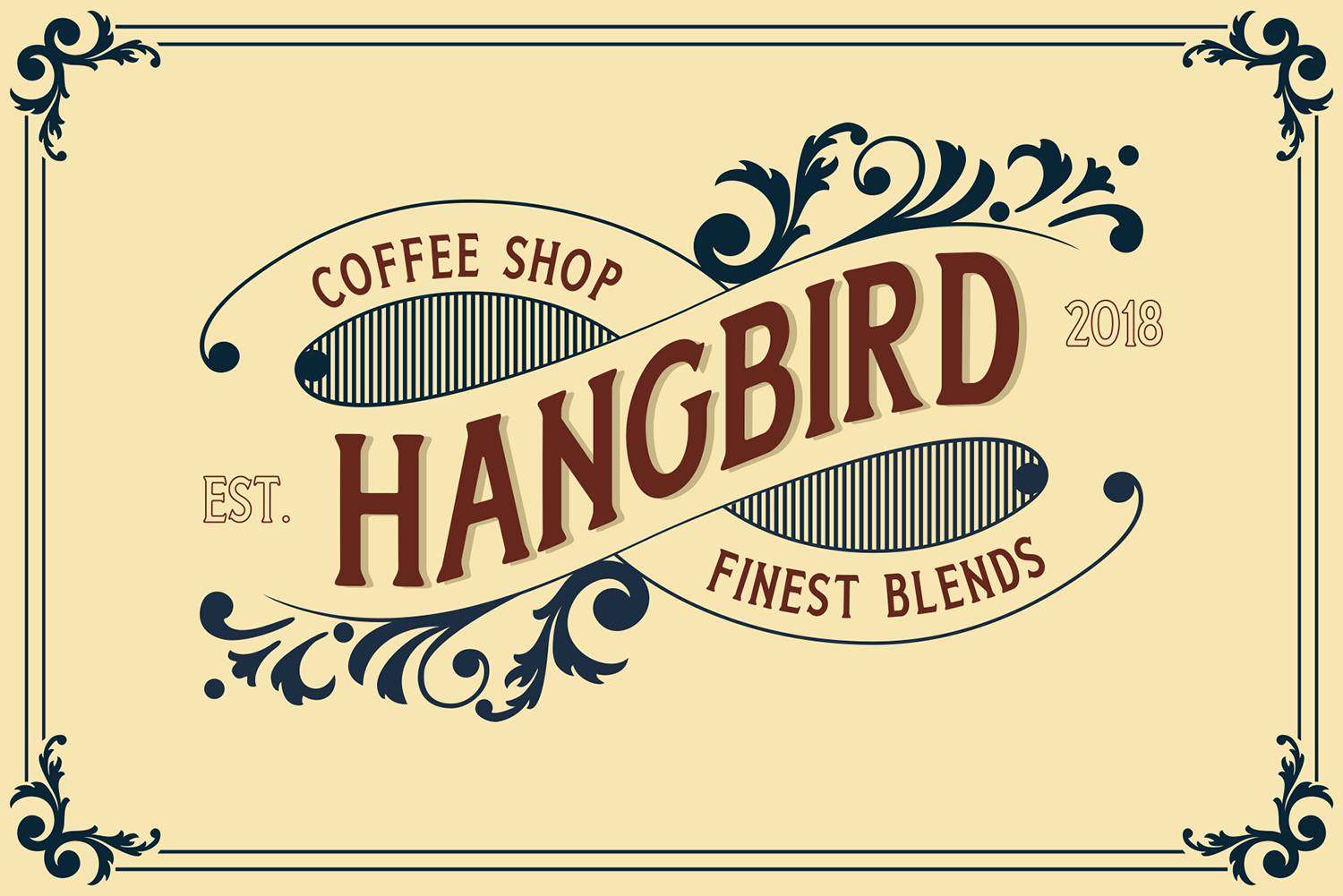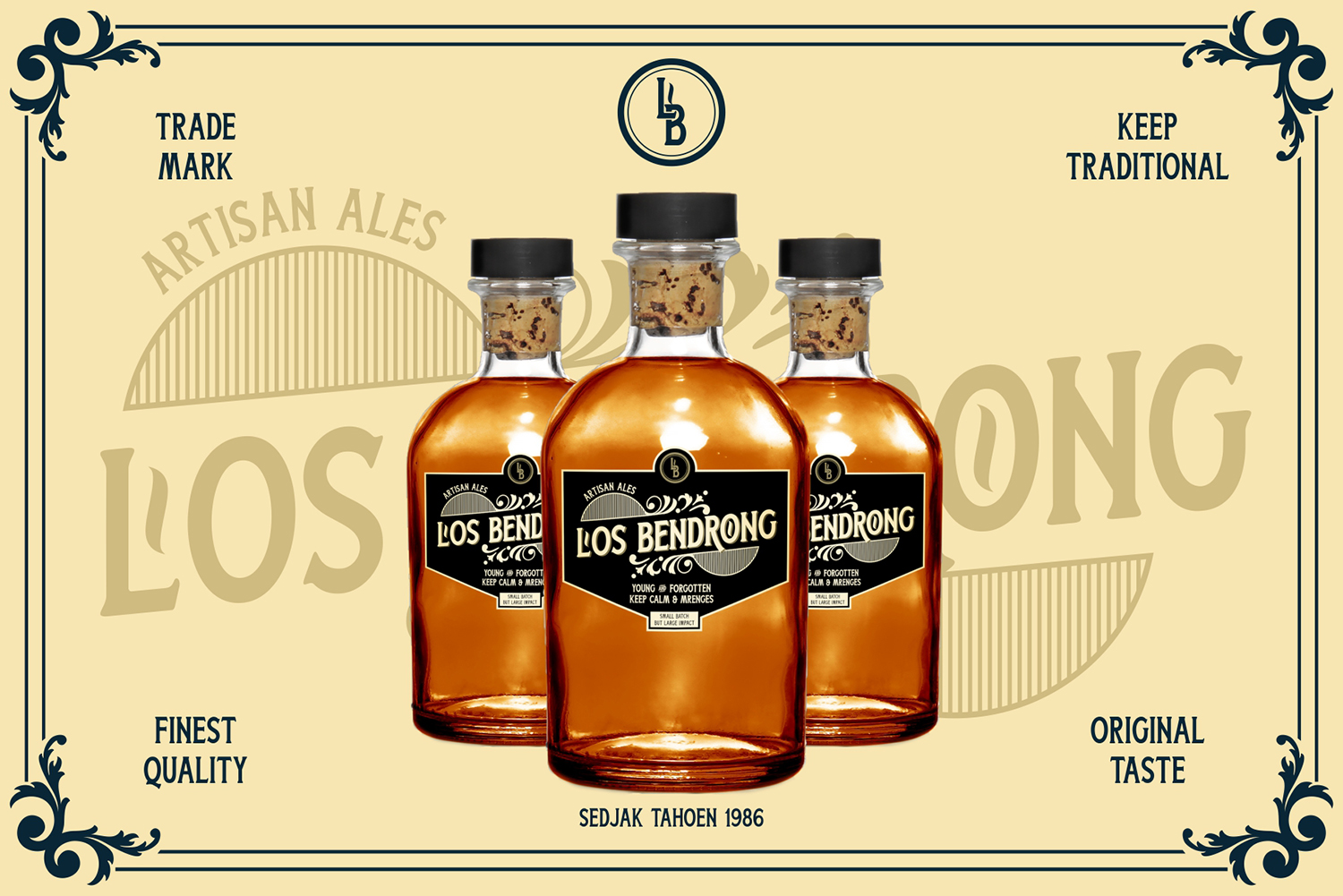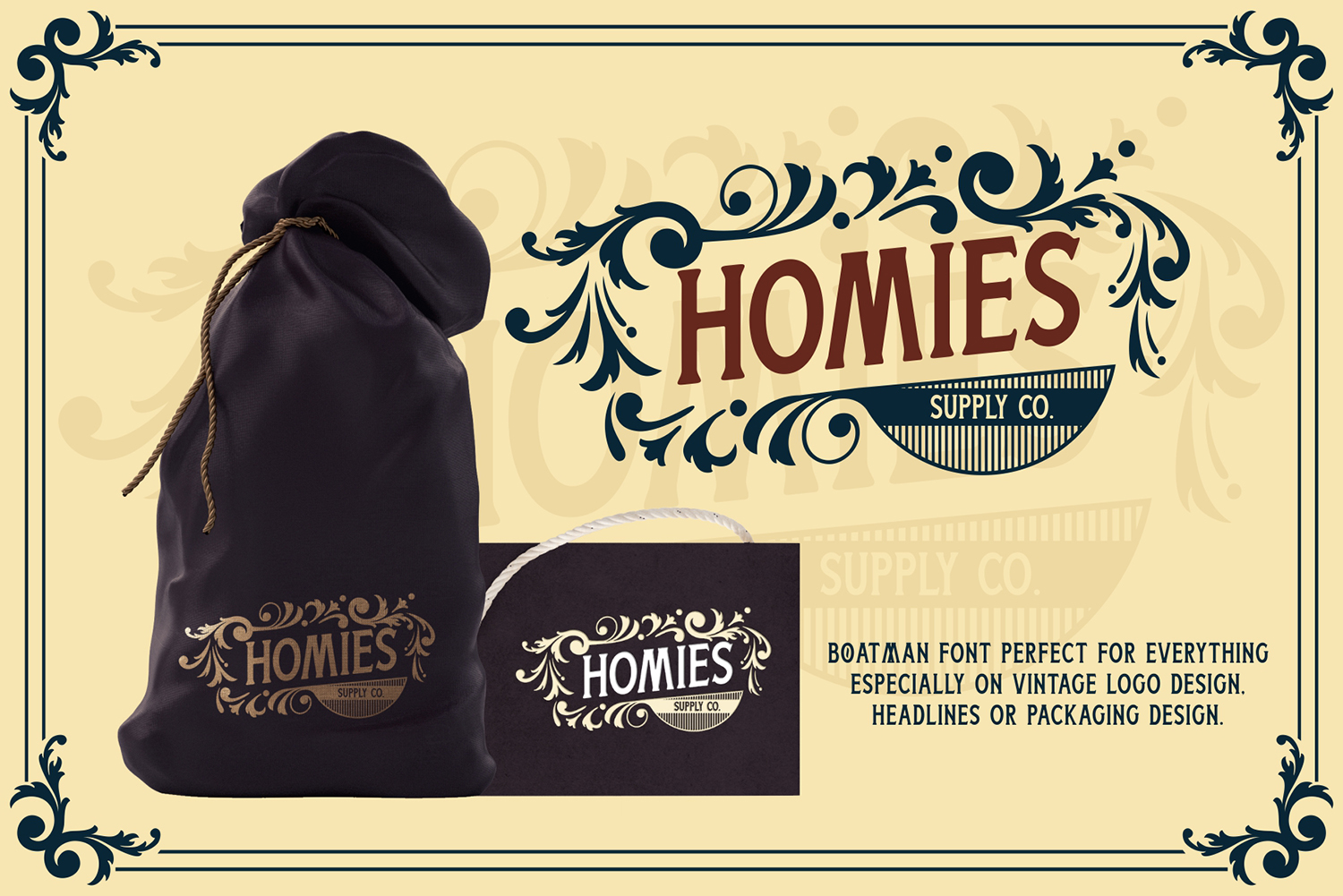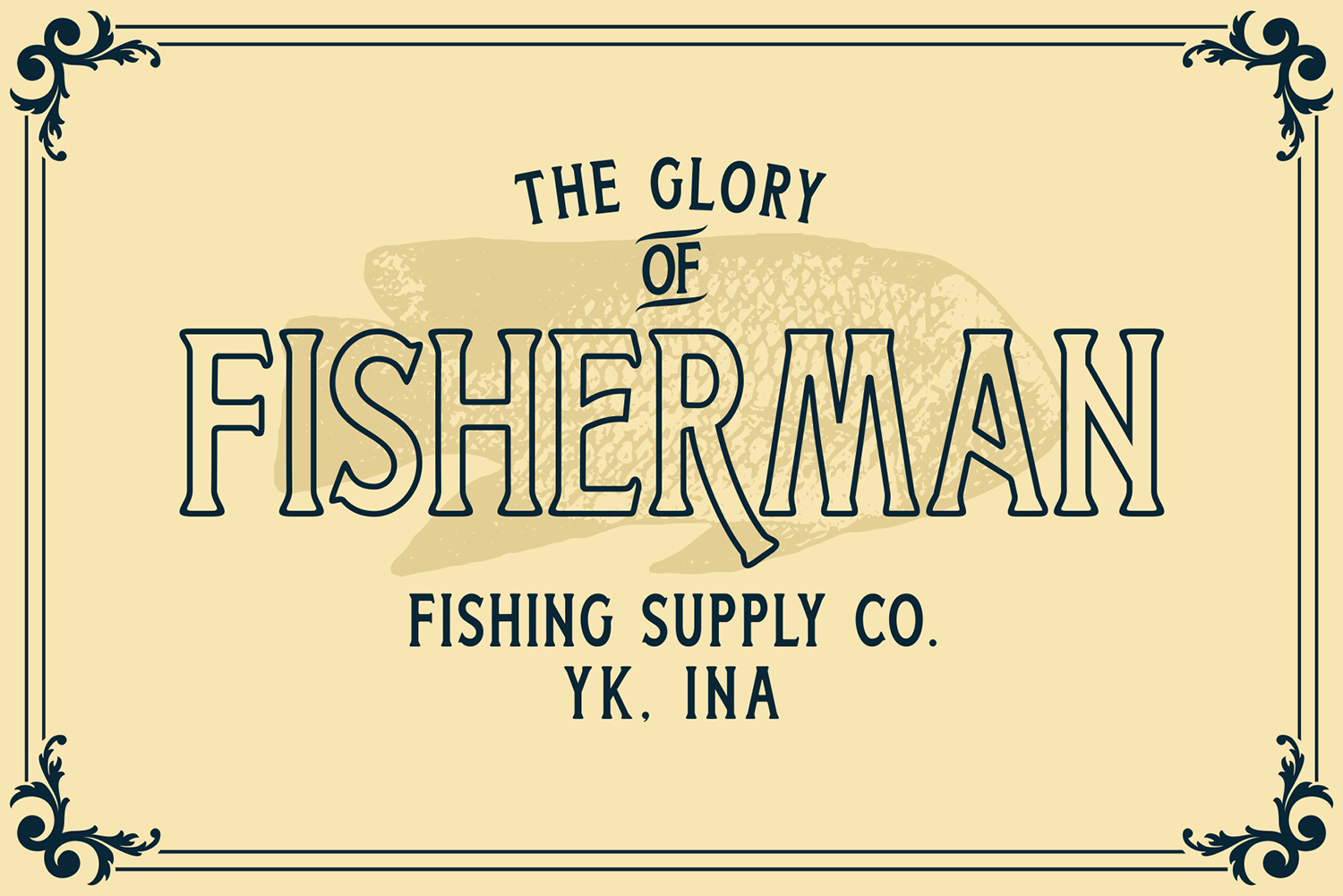
Boatman Free Font
Boatman Free Font is a vintage display font inspired by classic whiskey labels, vintage labels, and sing painting. Boatman comes with 3 styles (Regular, Outline, and Stamped) that extend the possibilities when you design something. Boatman also has the Stylistic Set. With the Stylistic Set, Boatman gives you so many options to create something awesome. Mix and match the alternate characters to add an attractive message to your design. This free typeface was designed by the talented Yudha Ageng. If you like it don’t forget to check out the full version.